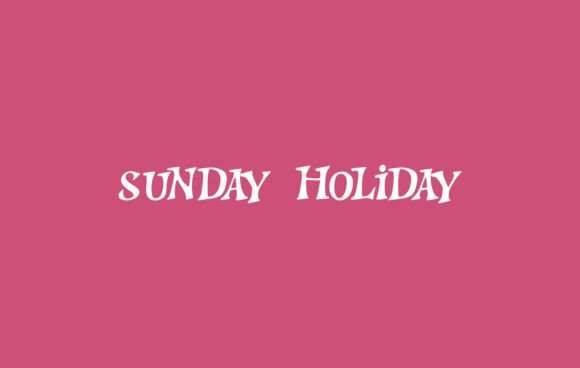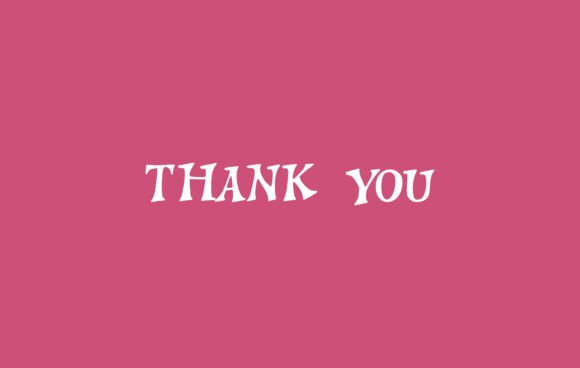
Introduction to Majestic Grace Font
Majestic Grace font is an authentic handwritten font with a romantic touch.
Key Features of Majestic Grace Font
Why Choose Majestic Grace Font?